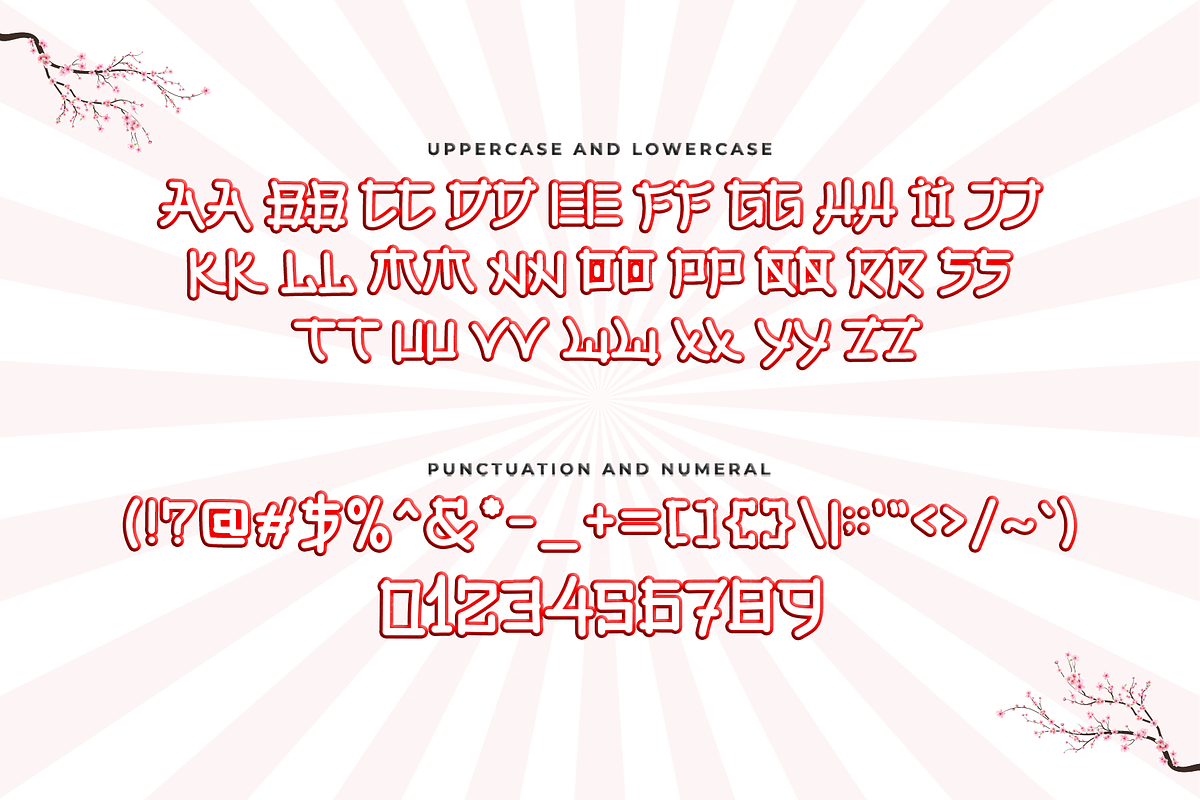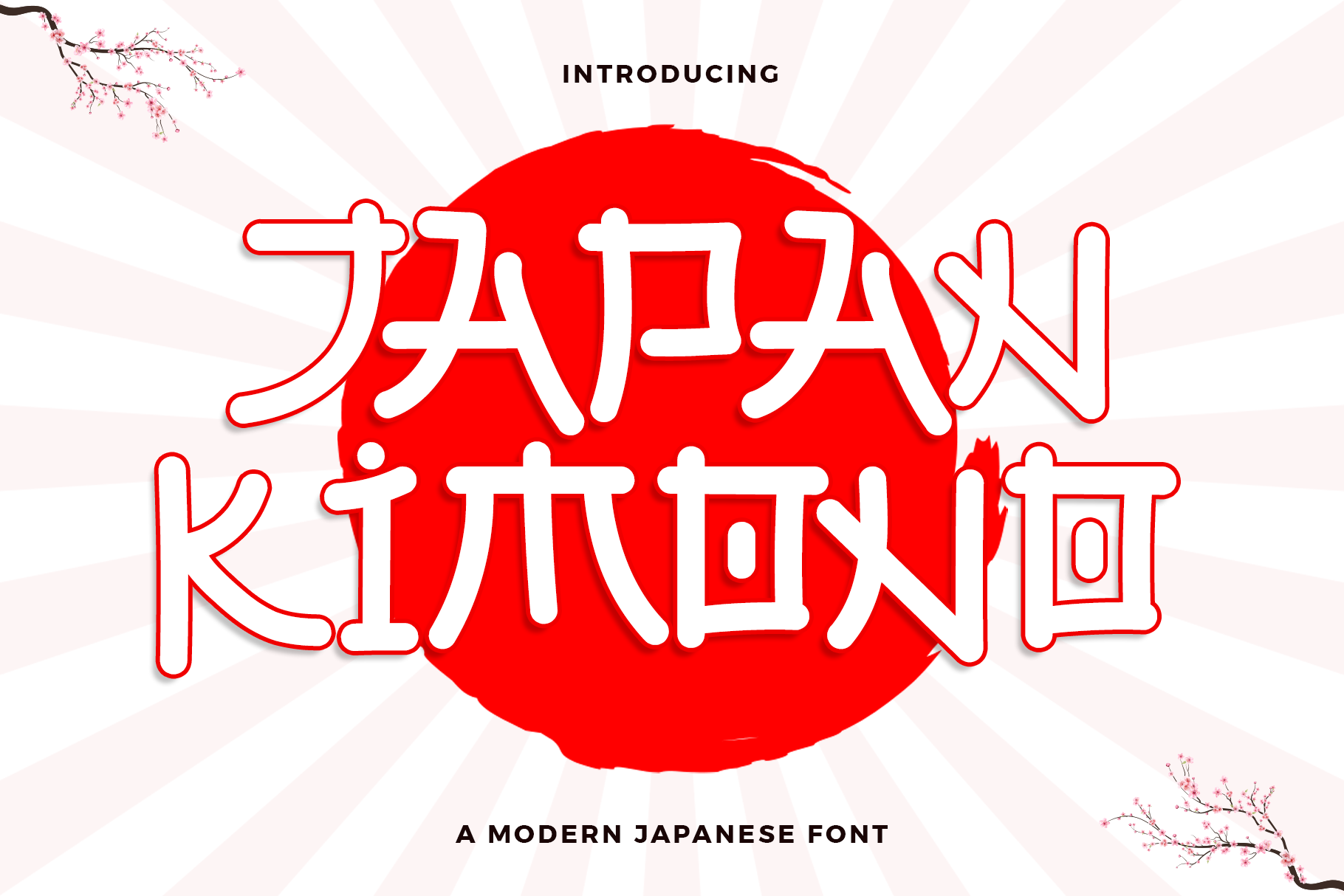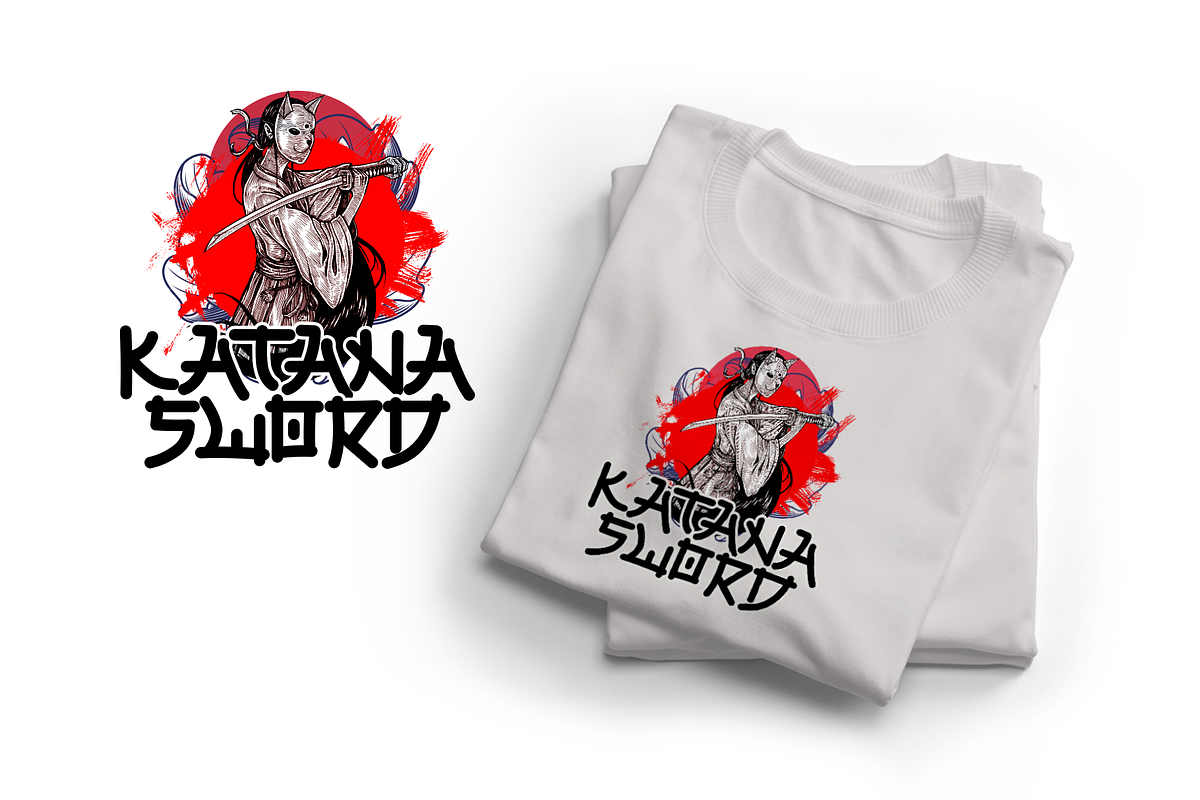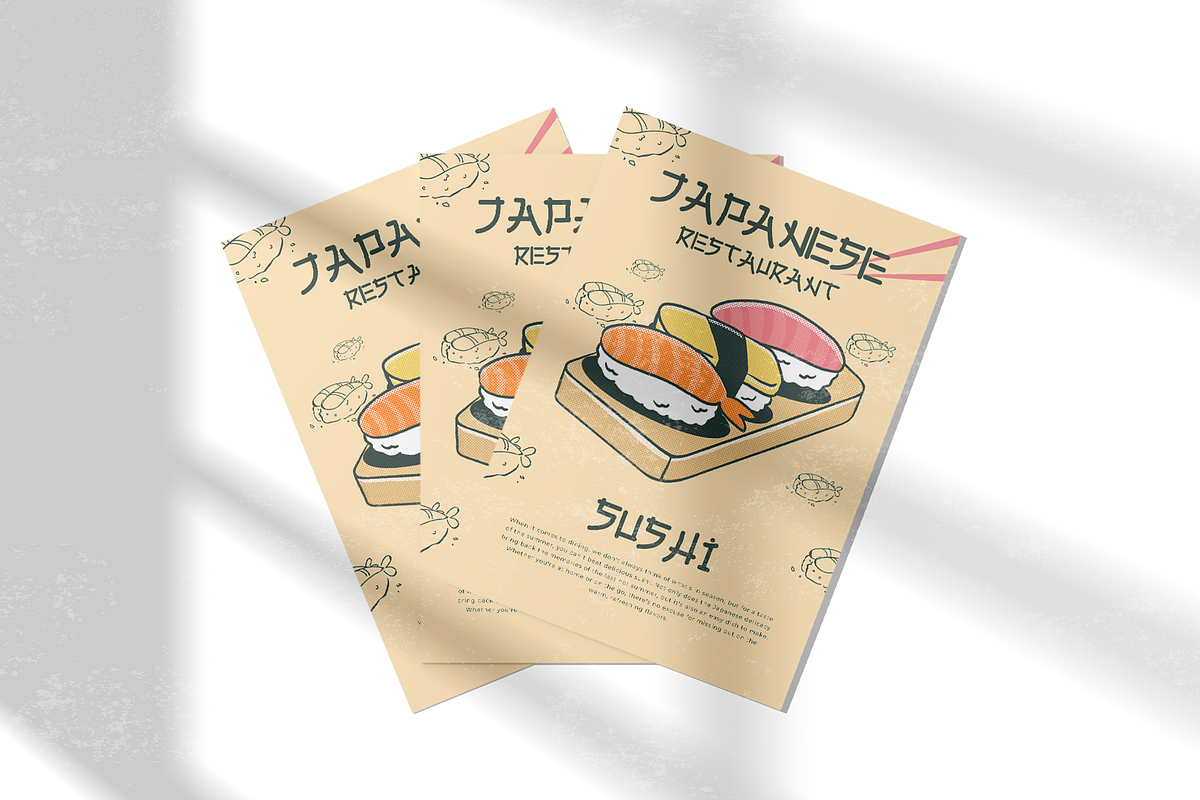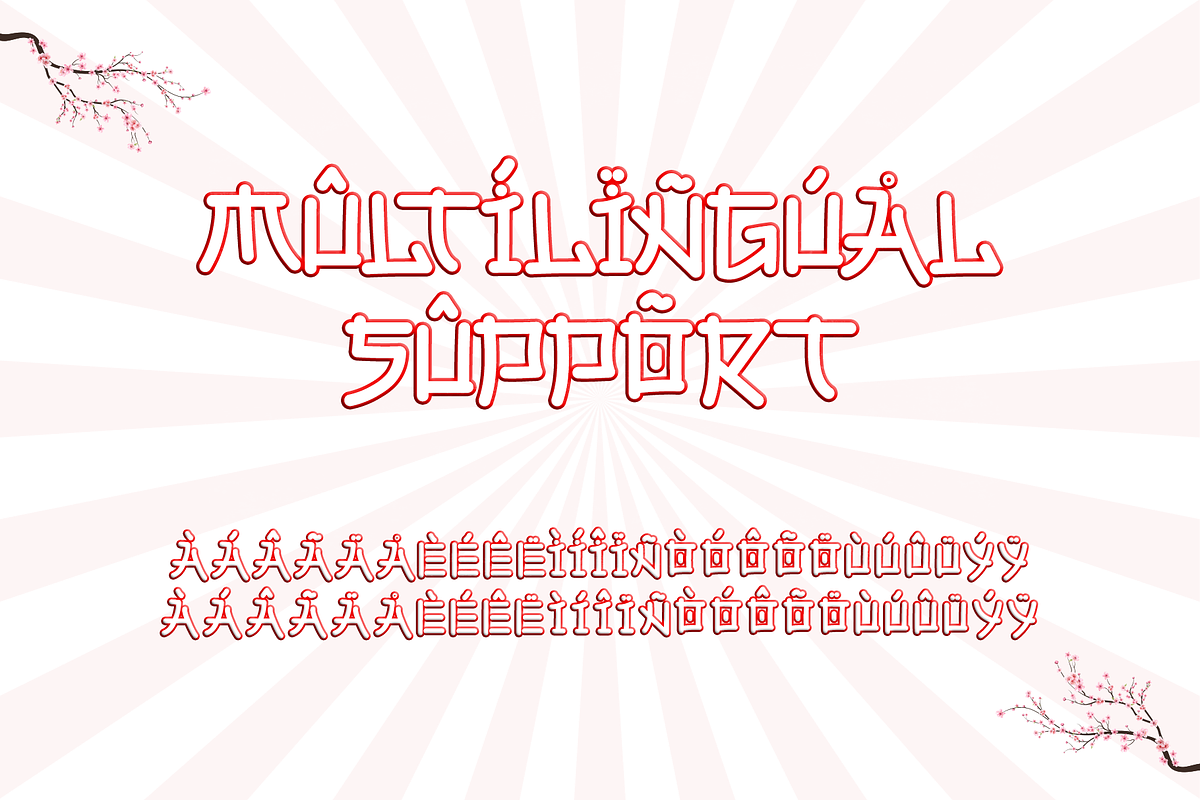
Japan Kimono - Modern Japanese Font
Introducing "Japan Kimono," a modern Japanese font that seamlessly blends cultural elegance with contemporary style. Perfect for graphic designers, typographers, and creatives seeking to incorporate a touch of Japanese artistry into their projects, Japan Kimono offers a unique typeface that captures the beauty and precision of traditional Japanese calligraphy with a modern twist.
Ideal for branding, posters, packaging, websites, and apparel, Japan Kimono’s elegant and fluid characters provide a visually stunning and culturally rich aesthetic. Each letter is meticulously crafted to ensure clarity and artistic integrity, making your designs both captivating and sophisticated.
The "Japan Kimono" font includes a complete set of uppercase and lowercase letters, numbers, punctuation marks, and special characters. This comprehensive set ensures seamless integration into various design projects, from elegant branding to stylish promotional materials.
Embrace the beauty of Japanese culture with Japan Kimono, the modern Japanese font that combines cultural elegance with contemporary style.